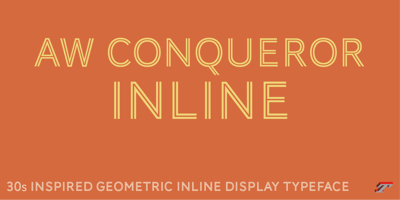
AW Conqueror Inline Std Regular Font Family was designed by Jean François Porchez and published by Typofonderie. AW Conqueror Inline Std Regular contains 1 styles and family package options. 30s inspired geometric inline display typefaceSeveral titling typefaces made their appearance at the start of the 20th century, notably Acier and Bifur, both created by French poster artist Cassandre. Later, in the Netherlands, S.H. de Roos designed a version of Inline for its Nobel family called, naturally, Nobel Inline. AW Conqueror Inline pays homage to this beautiful version.AW Conqueror superfamilyAW Conqueror Didot is part of a larger family, who include 4 others subfamilies with great potential: They’re but based on same structure, with some connection between them (width for example), to offer a great & easy titling toolbox to any designers, from skillful to beginner. Each of the members try their best to be different from the others because of their features. They should work harmoniously in contrast.Club des directeurs artistiques Prix 2010European Design Awards 2011